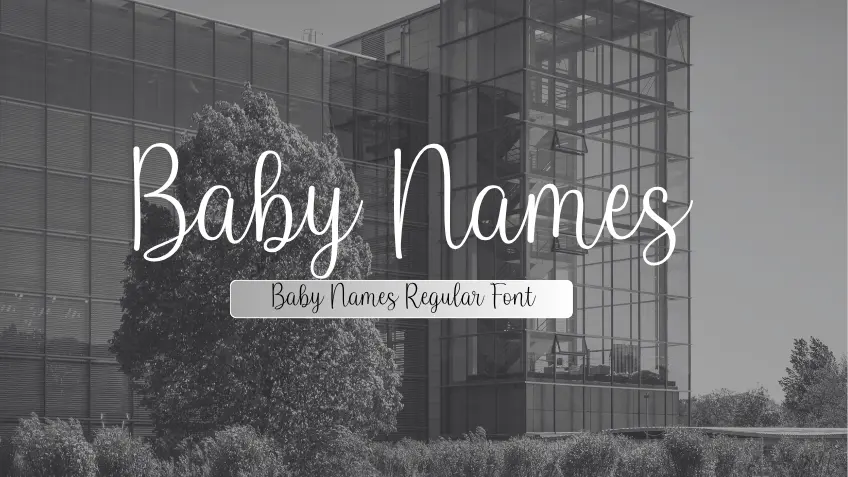
The font Baby Names Regular, designed by Brithos Type, falls under the Display, Handwritten, Script category & Baby Names font family. Its smooth, flowing letterforms make it a versatile choice for projects that require both elegance and readability. Baby Names is particularly well-suited for Baby Shower, T-shirt Design, Product Packaging, Greeting Cards and Decorative headlines. With its balance of simplicity and decorative appeal, this font brings a polished touch to both personal and professional designs.